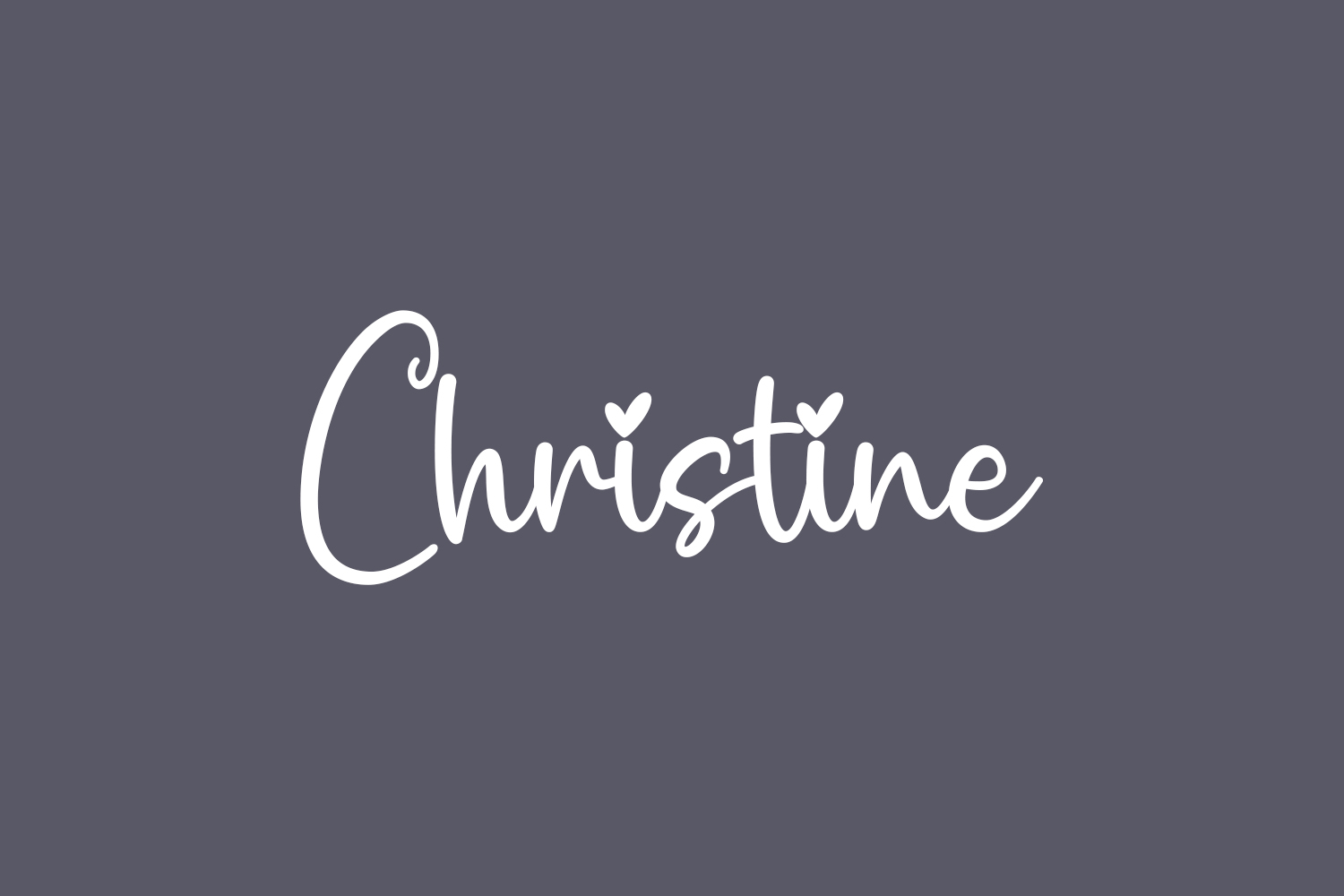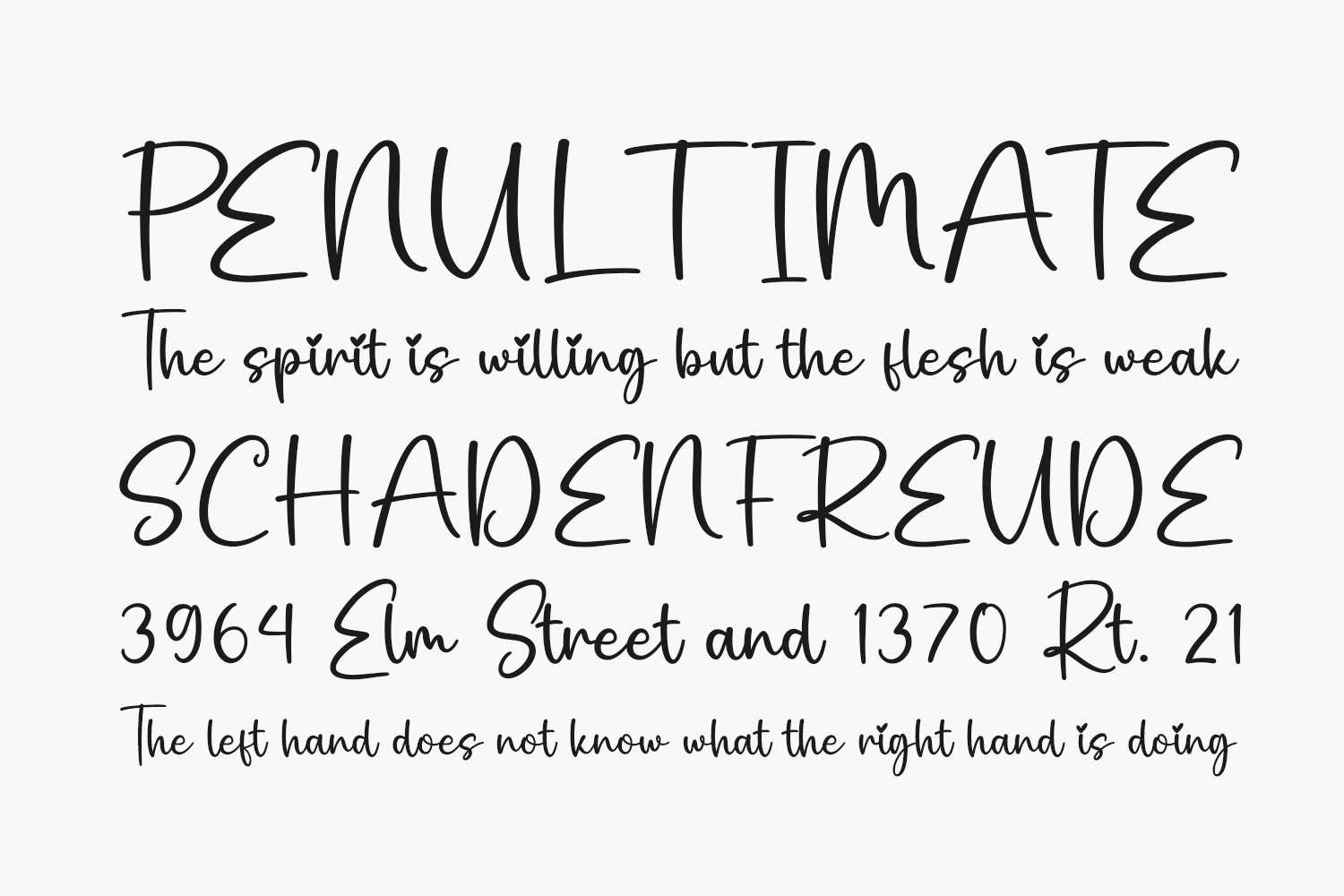
Discover the enchanting allure of Christine Free Font, a timeless handwritten font that adds a touch of elegance to your designs. Ideal for crafting eye-catching logos, establishing memorable branding, and creating impactful quotes, Christine is your go-to choice for projects that demand a stylish and enduring aesthetic. Christine Free Font was designed by Nirmala Creative and is free for personal use only. Please purchase the full version for commercial use.